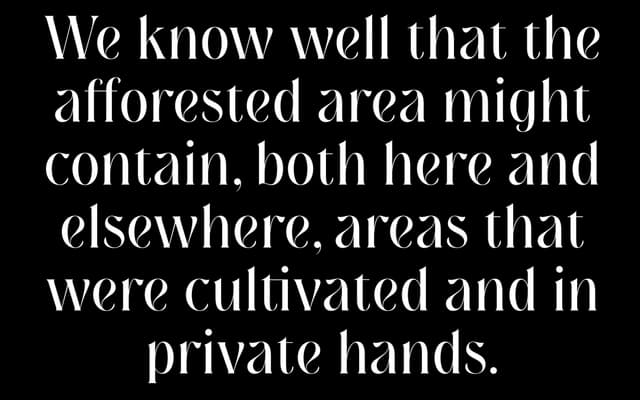
A two-style serif with art nouveau leanings, offered in Regular and Italic with small caps, ligatures and alternates across 853 glyphs per style.
An elegant serif drawing on art nouveau traditions, suited to editorial, literary or branding work where a touch of period ornament is welcome. The family ships with two cuts, Regular and Italic, each carrying small caps, small numbers, multiple ligatures and alternates. Beasts of England accompany it with a prose meditation on the New Forest itself, giving the release a distinctly literary character.
Described as a modern, elegant serif with art nouveau leanings, placing it within a decorative serif tradition influenced by the organic, ornamental qualities of the art nouveau movement.